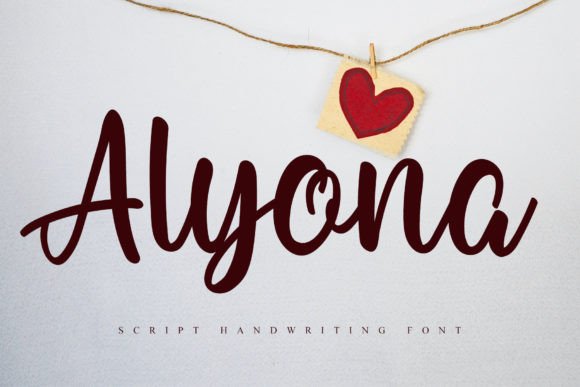
Prepare yourself for the ultimate calligraphy experience with Alyona Font, a handcrafted masterpiece that will transform your designs into exquisite works of art. Its elegant curves and flowing lines capture the essence of genuine handwriting, adding a touch of heartfelt authenticity to every project.
Whether you're crafting an unforgettable logo that embodies your brand's unique personality, designing captivating labels that leave a lasting impression, or creating breathtaking photography that captures the emotions of a moment, Alyona Font elevates your creations to new heights. Its versatility knows no bounds, seamlessly adapting to a myriad of styles and applications, promising endless creative possibilities.
Unleash your inner artist and let your imagination soar with Alyona Font. Experience the magic of handwritten typography that effortlessly adds a personal and sophisticated touch to every design. With its undeniable charm and endless applications, it's the perfect font for making your creations truly shine.